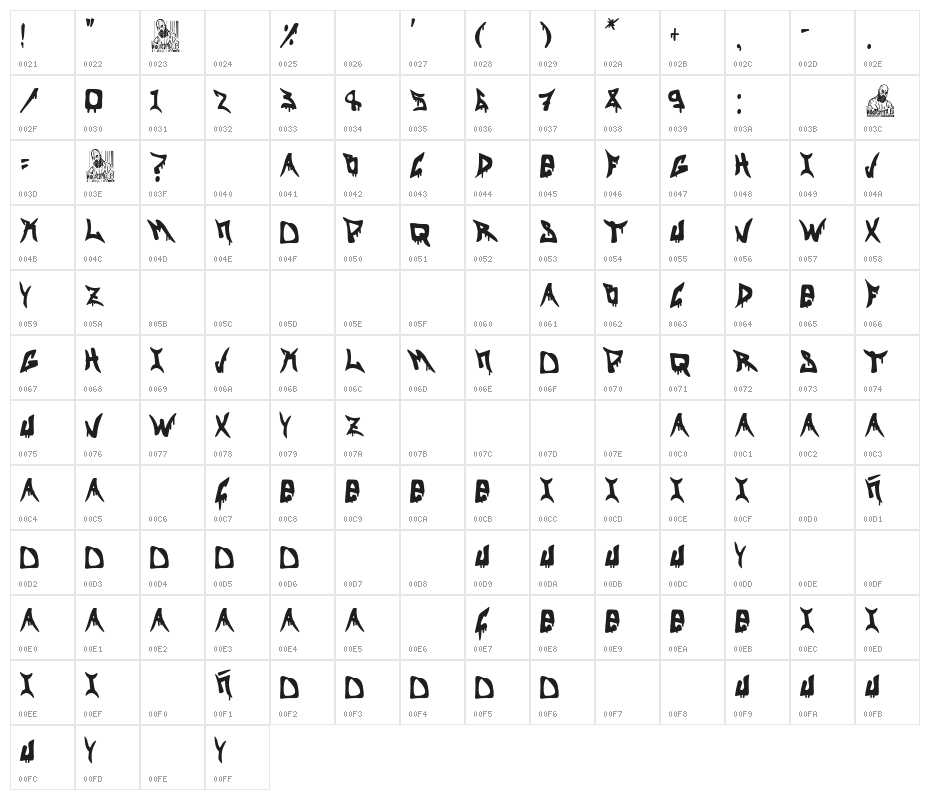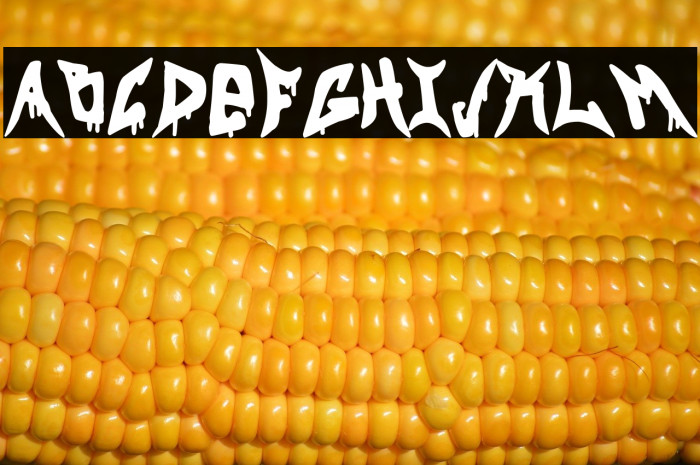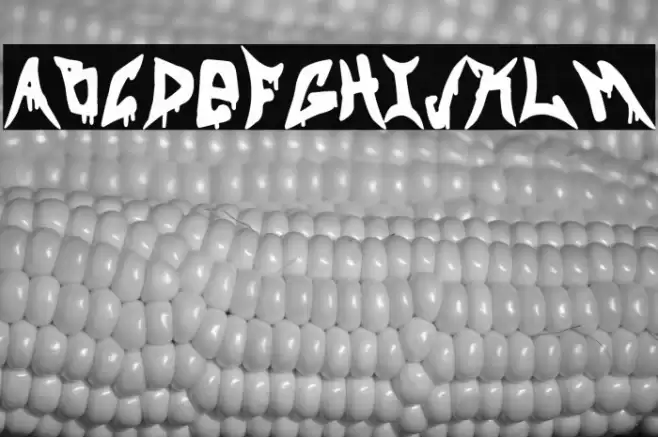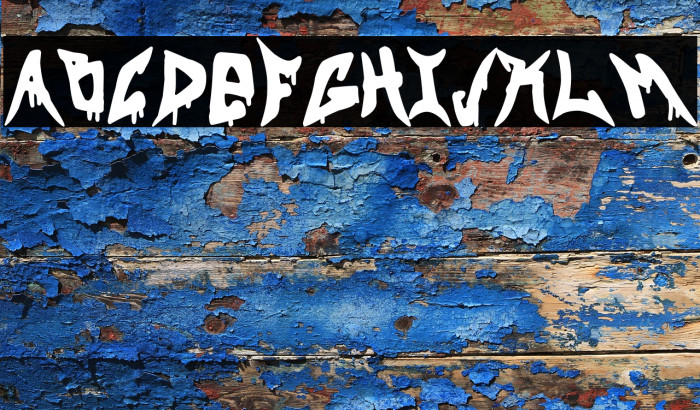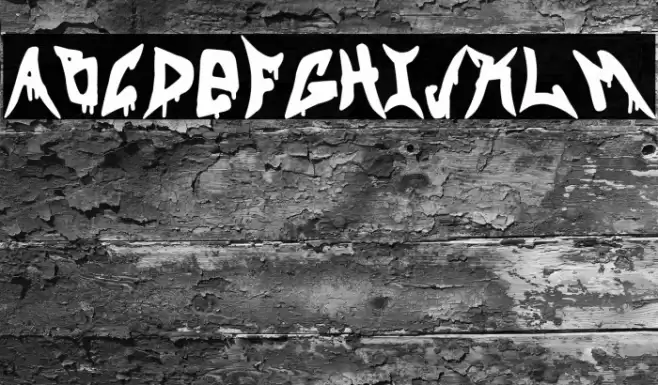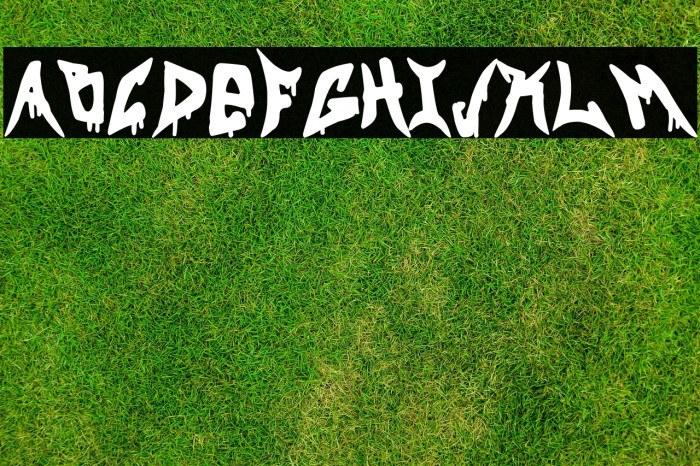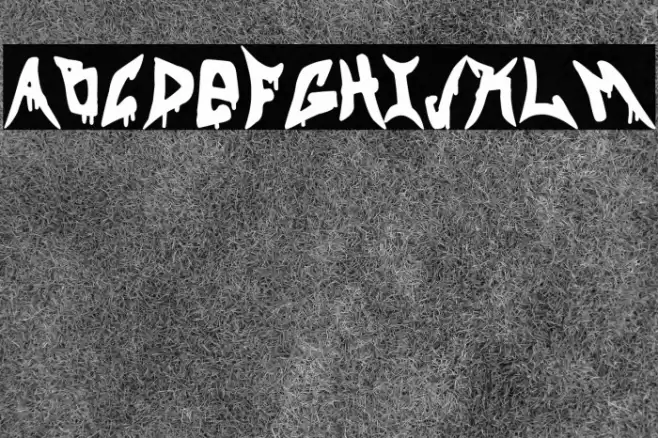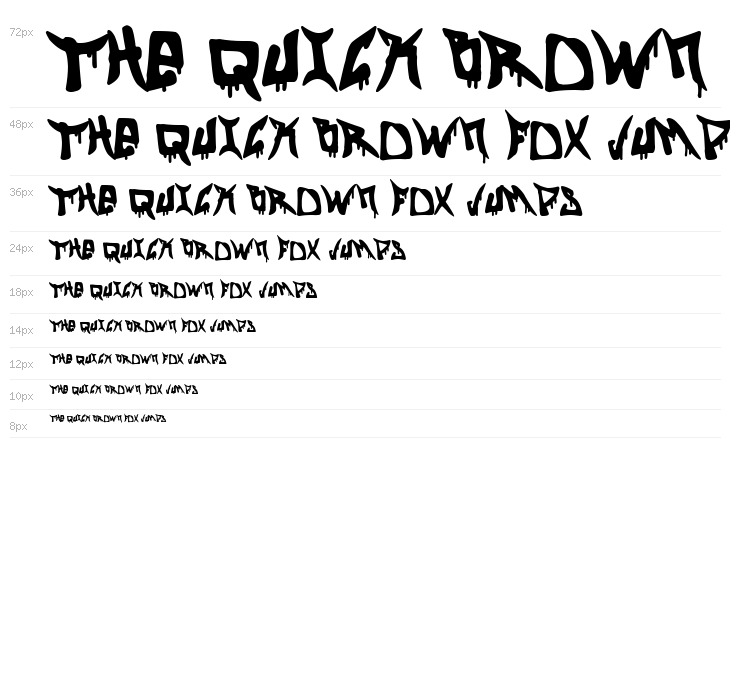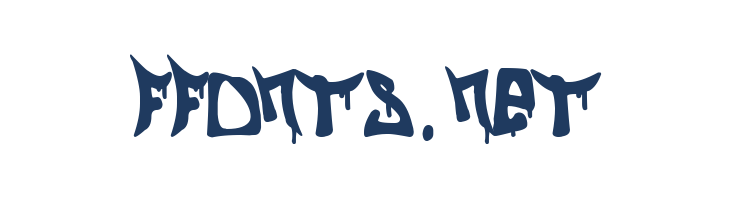
Las Malas Calles Font
✎ Graffiti
| Vorgeschlagene Projekte | Ideal for horror movie posters, Halloween event flyers, edgy streetwear branding, or any project requiring a dramatic and unconventional typeface. |